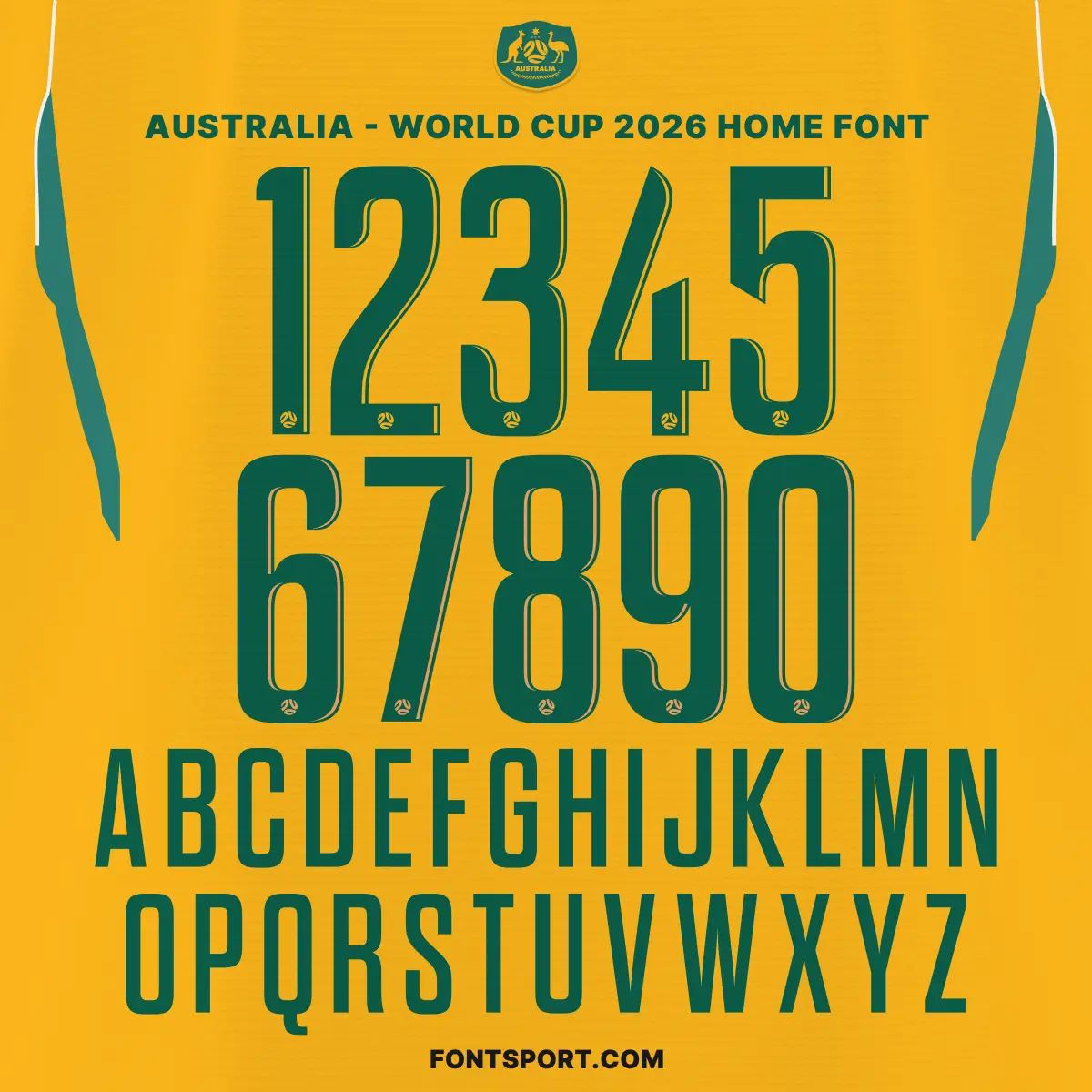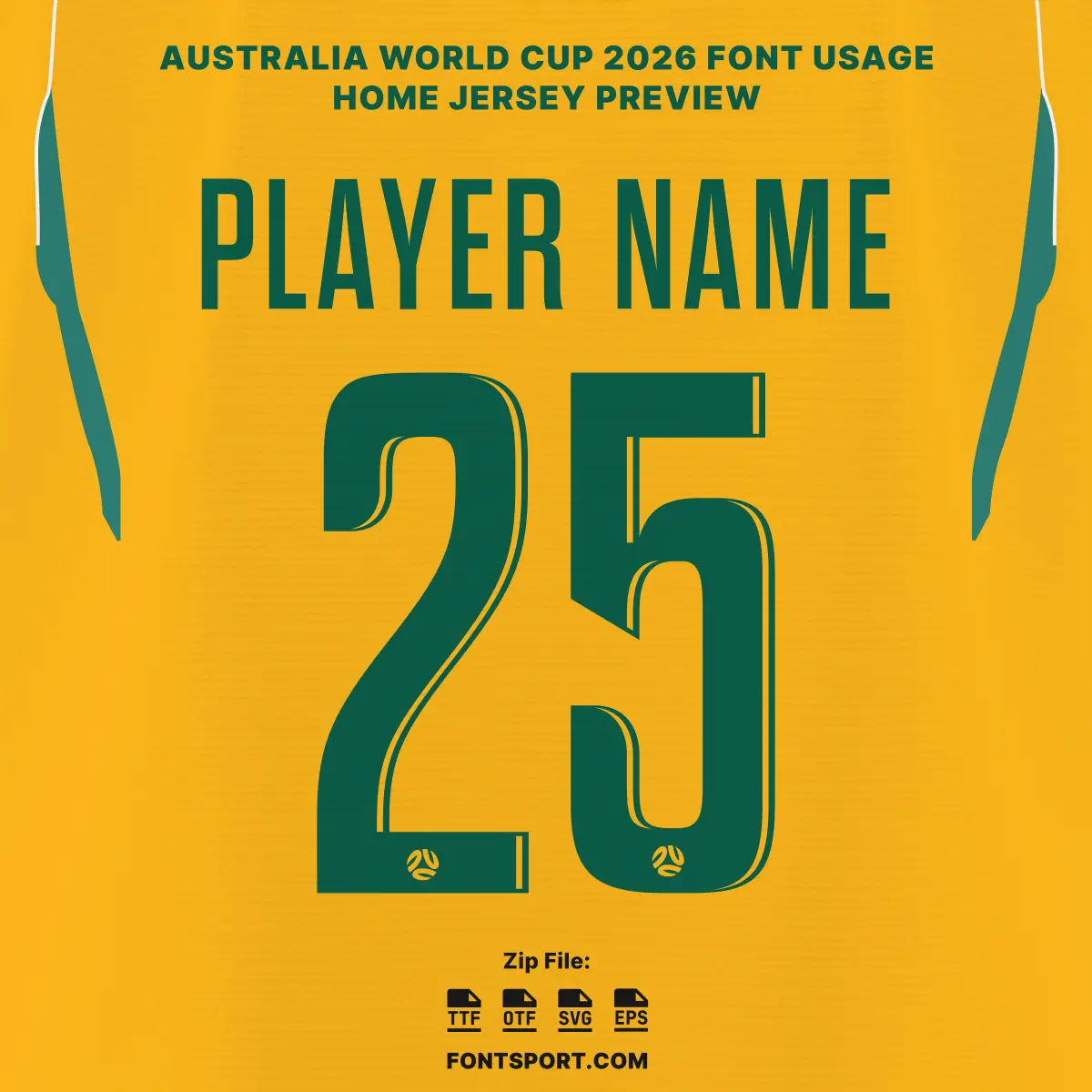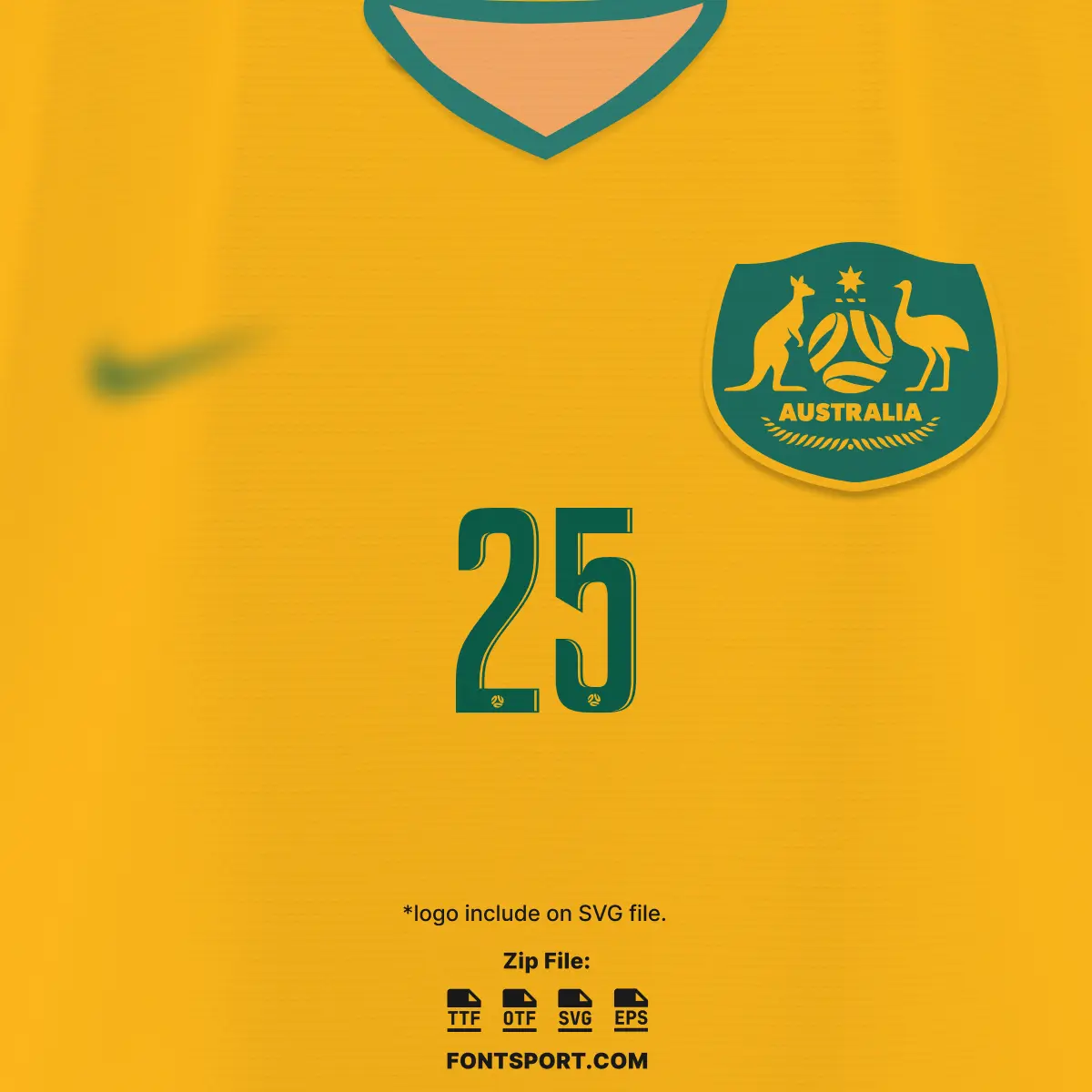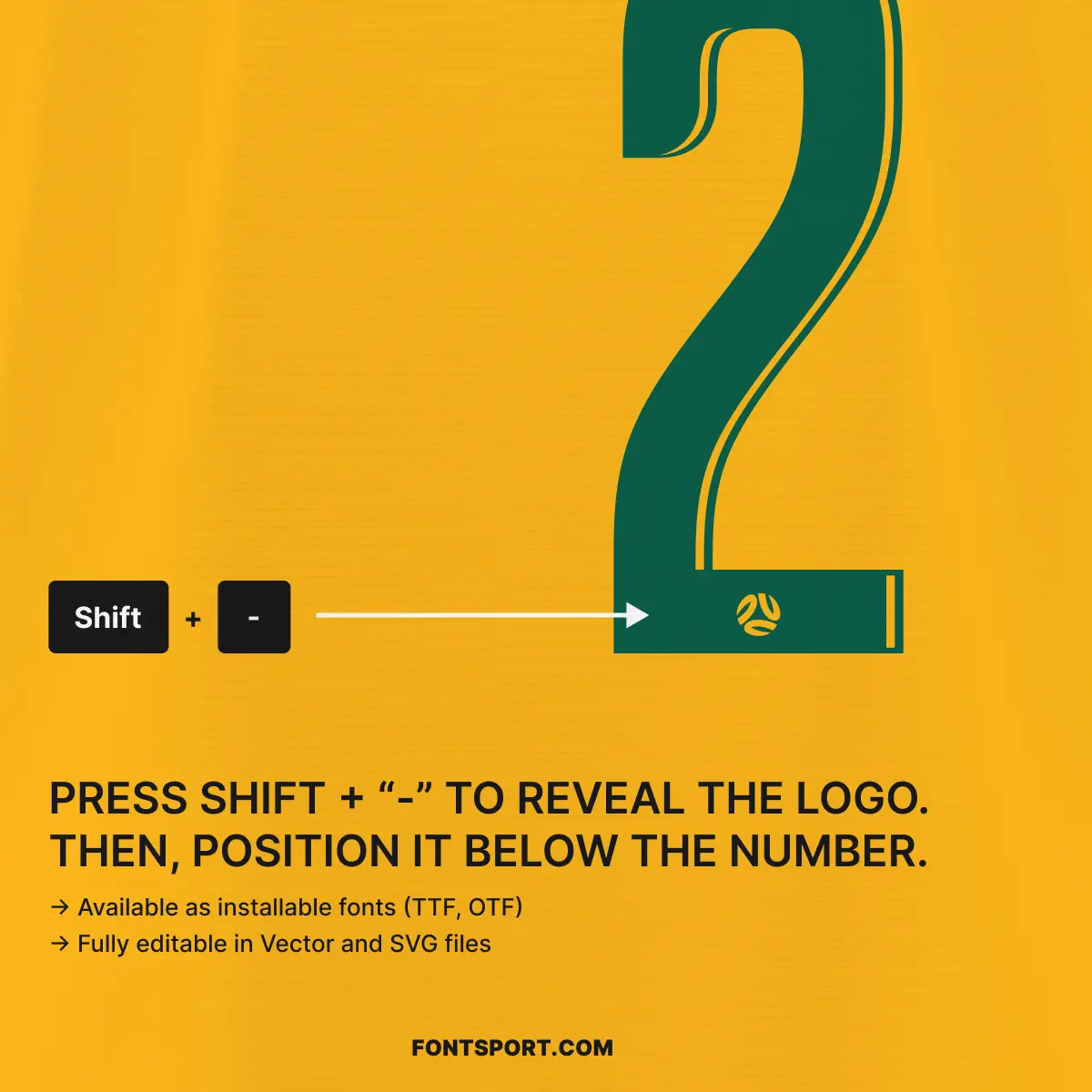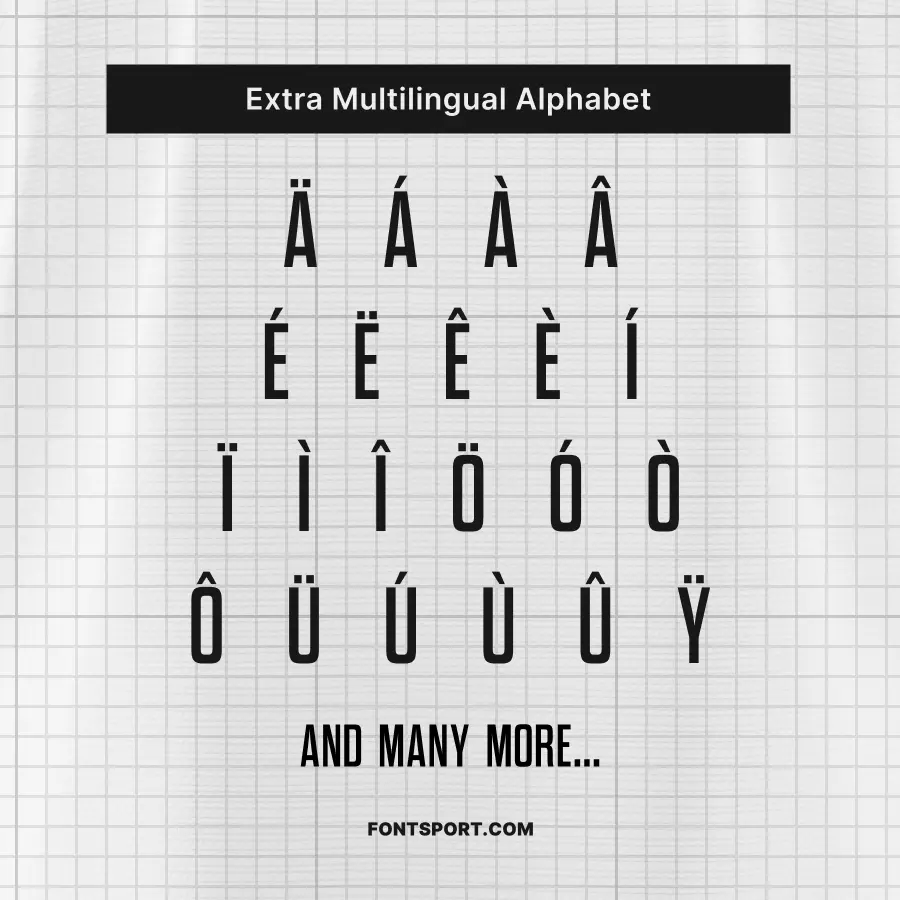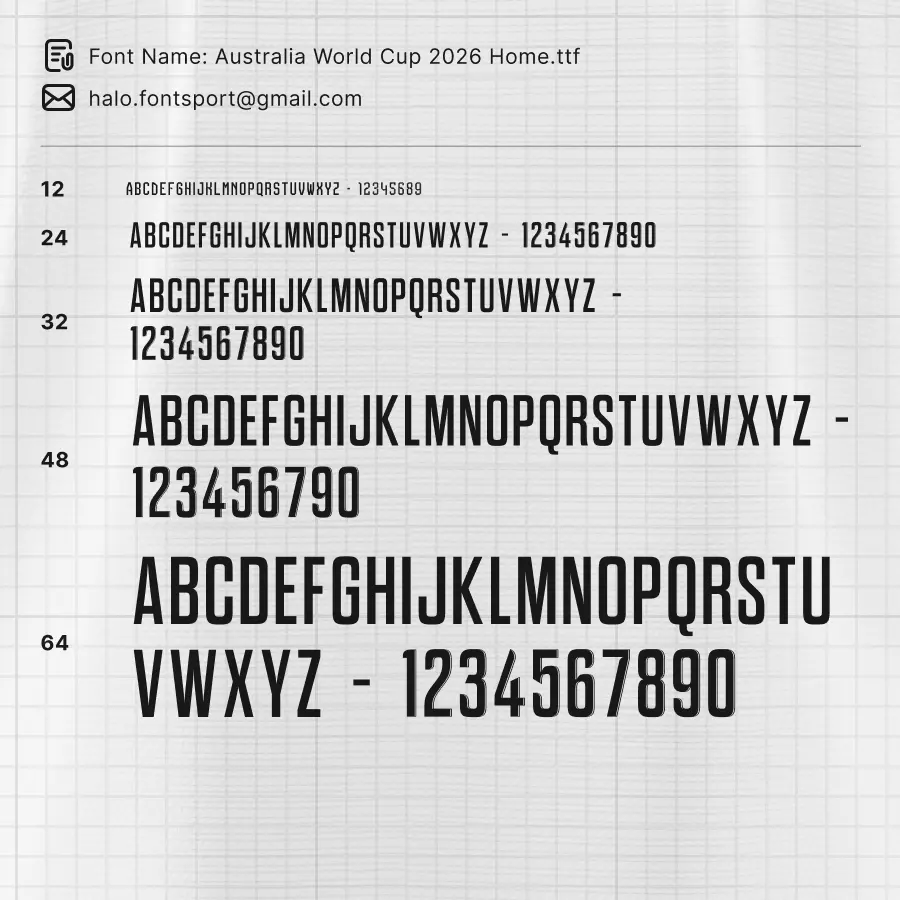
Australia World Cup 2026 Home Font Kit – Football Typeface
The Australia World Cup 2026 Home Font Kit captures the “Iconic Australia” energy as the Socceroos prepare for their sixth consecutive global appearance. This font mirrors the re-energized, classic aesthetic of the 2026 home collection, which draws direct inspiration from Australia’s legendary 2006 kit and the iconic Total 90 era. Featuring bold, high-visibility geometry, this typeface is a key element of Nike’s Aero-FIT innovation, reflecting a sense of optimism and future-facing inspiration for a new generation of fans.
Complete A–Z Character Set: Features the sleek, athletic uppercase letters that will be worn by stars like Nestory Irankunda and Jordy Bos on the world stage.
Full 0–9 Number Set: Optimized for high-intensity visibility, reflecting the modernized “Golden Generation” aesthetic of the official 2026 jerseys.
Extra Multilingual Alphabet: Full support for accented characters (Ä, Á, È, Î, Ë, etc.), perfect for accurately rendering an international roster.
Integrated Team Identity: Add an authentic finish to your designs by revealing the official-style Socceroos crest within the typography through a simple keyboard shortcut.
This bundle is ideal for creating personalized football kits, striking match-day posters, or unique merchandise that celebrates twenty years of Australian presence at the highest level.
This font kit is built for designers who want to bridge the gap between heritage and high-tech innovation:
Total 90 Inspiration: Part of a campaign that pays homage to the 2006 jersey while reinforcing Australia’s continued presence at the global finals.
Modern Execution: Specifically designed to work with the re-energized traditional gold and green palette featured in Nike’s 2026 template.
Optimized for Apparel: An ideal font for jersey printing, sports branding, and team uniforms that require a “bold and authentic” appearance.
Versatile Design Asset: Use it as a football font for digital match-day banners or a sport font for physical print-on-demand products.